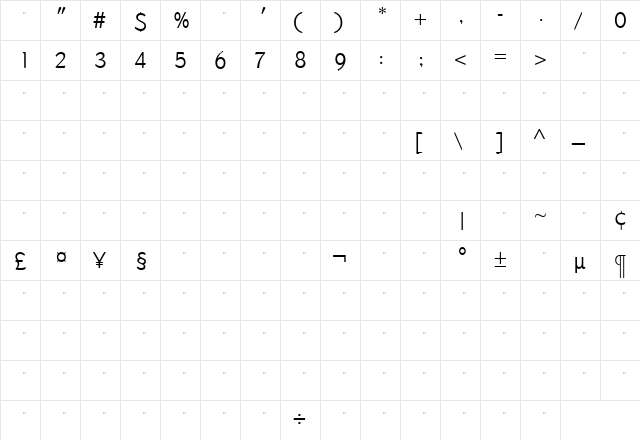
DundeeLightTab Regular
Design Context for DundeeLightTab Typeface
DundeeLightTab takes a measured approach to typography — its balanced proportions and neutral character make it a reliable workhorse for both digital and print work. Its slender proportions lend an understated elegance to any composition.